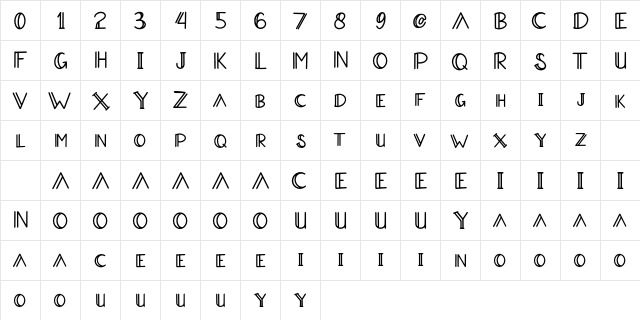
Aradeva Demo Regular
| Designer | DWI KRISDIANTORO |
Design Context for Aradeva Demo Typeface
Aradeva Demo takes a measured approach to typography — its balanced proportions and neutral character make it a reliable workhorse for both digital and print work.